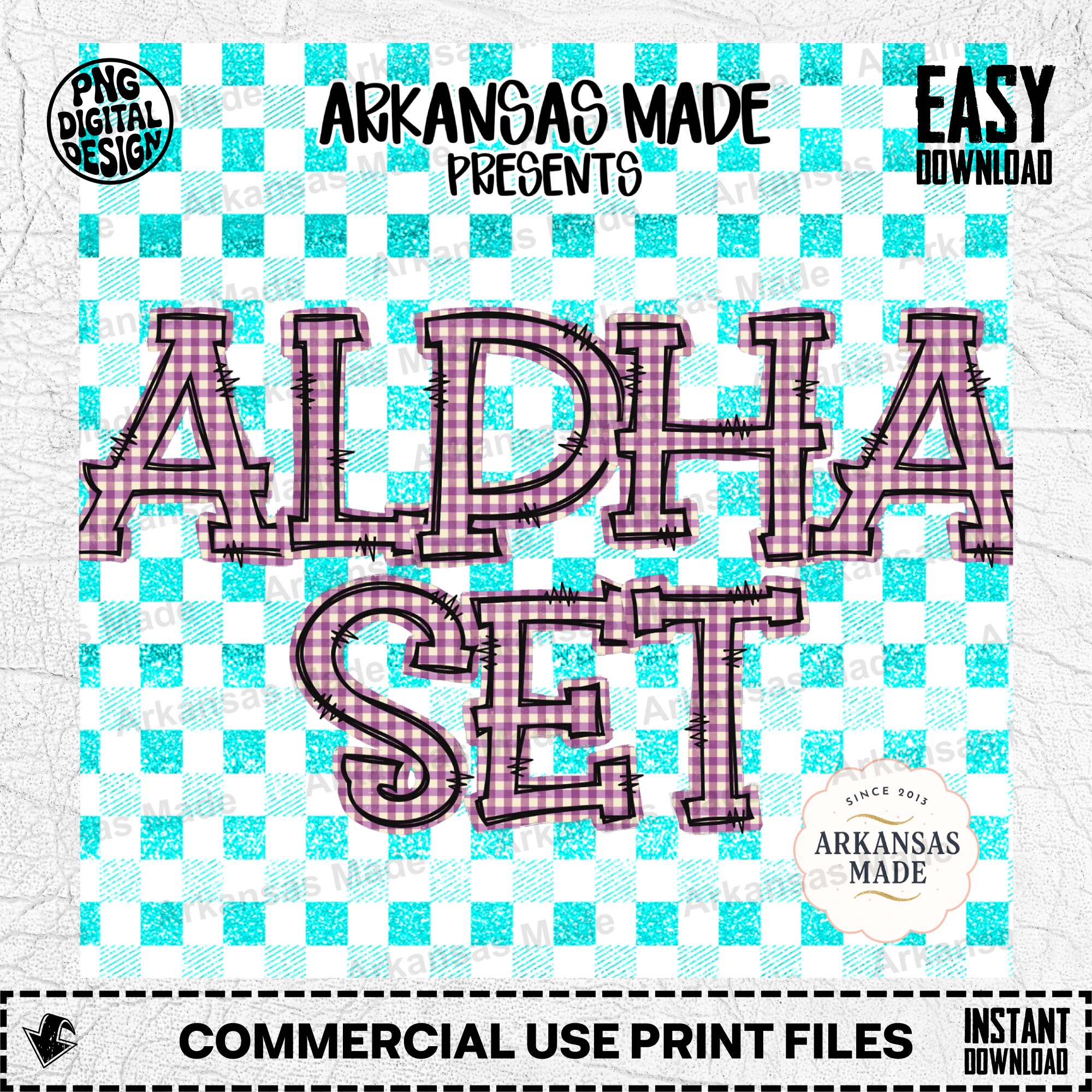
Unlock your creativity with this charming Purple Gingham Alpha Set PNG, featuring plaid alphabet letters for all your digital and crafting projects. This instant digital download bundle provides unique stitched font designs perfect for sublimation, HTV, and more. Embrace a rustic farmhouse aesthetic or add a touch of cozy country charm to your designs. Ideal for crafters, small business owners, and DIY enthusiasts looking to create personalized gifts, unique apparel, or stunning home decor with ease. From custom monograms to distinctive banners, these versatile PNG files are your go-to resource for inspired creations.